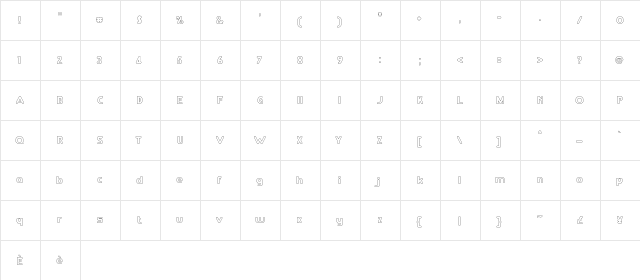
RM Playtime Regular
| Designer | Ray Meadows |
Design Context for RM Playtime Typeface
RM Playtime is a composed and adaptable typeface that performs quietly and consistently across a wide range of design contexts.